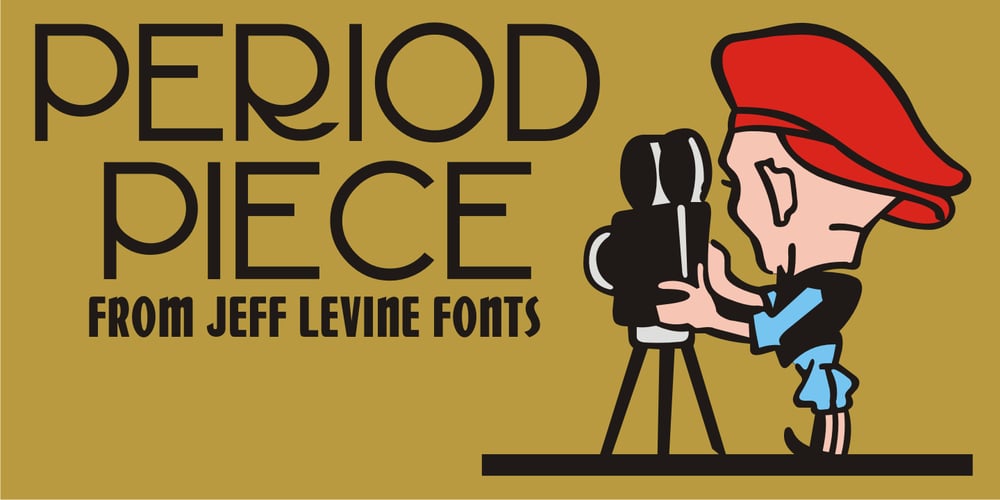
Period Piece JNL
Period Piece JNL font
Period Piece JNL Font Family was designed by Jeff Levine and published by Jeff Levine. Period Piece JNL contains 1 styles and family package options. A period piece is something of or pertaining to a specific era or time. Anything evoking a knowledge or feeling of an era can be labeled as such. The aptly named type font Period Piece JNL reflects the hand lettering found on the cover of early 20th century vintage sheet music entitled “My Baby’s Arms” (from the stage production of “Ziegfeld Follies of 1919”). Although strongly akin to the coming Art Deco movement in its lettering style, Period Piece JNL still contains a strong influence of the Art Nouveau era of the 1900s through the 1920s.